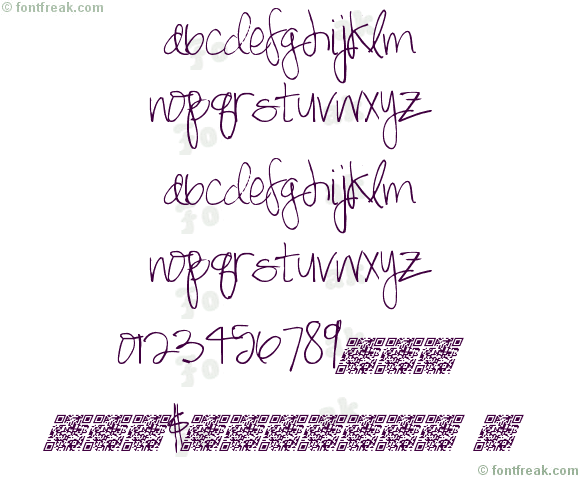
SpringDaisy
SpringDaisy by Xerographer Fonts is a delightful handwritten font that captures the essence of spring with its charming, playful design. Released in 2013, this font exudes a casual elegance, making it perfect for a variety of creative projects. The strokes of SpringDaisy are fluid and flowing, with a moderate weight that strikes a balance between legibility and artistic flair. The overall spacing is generous, allowing for easy reading while maintaining a whimsical feel.
The font features gentle curves and soft lines, lending it a friendly and approachable character. Decorative elements are subtly integrated, enhancing its organic feel without overwhelming the design. This makes SpringDaisy an excellent choice for wedding invitations, where its romantic and informal style can add a personal touch. It is also ideal for greeting cards, perfect for birthdays or other celebrations, as well as for branding small businesses, especially those in the artisanal or boutique sectors.
Content creators will find SpringDaisy to be an appealing addition to their toolkit, as it can easily elevate social media posts and blog graphics, making them more engaging and visually attractive. Small business owners can utilize this font in promotional materials to convey a sense of warmth and creativity, helping their brand stand out in a competitive marketplace.
What truly sets SpringDaisy apart is its unique ability to blend artistry and functionality, making it versatile for both digital and print applications. The SpringDaisy font free download is an accessible option for those looking to infuse their projects with a touch of whimsy and charm, ensuring that your designs will leave a lasting impression. Whether you're designing a heartfelt invitation or eye-catching marketing materials, SpringDaisy is a font that brings a breath of fresh air to any project.